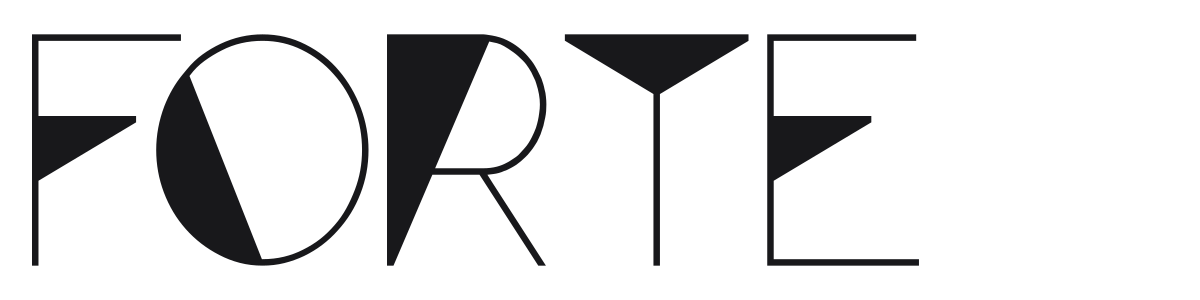
Forte
Forte is a bold, geometric display face by Paul Kritzmire that draws heavily from Art Deco lettering traditions, with strong vertical emphasis and decorative details that recall the signage and poster art of the 1920s and '30s. The uppercase letterforms are confident and angular, built to grab attention on headlines, event branding, and anything with a vintage glamour sensibility. It carries enough personality to stand on its own at large sizes without needing much else around it.